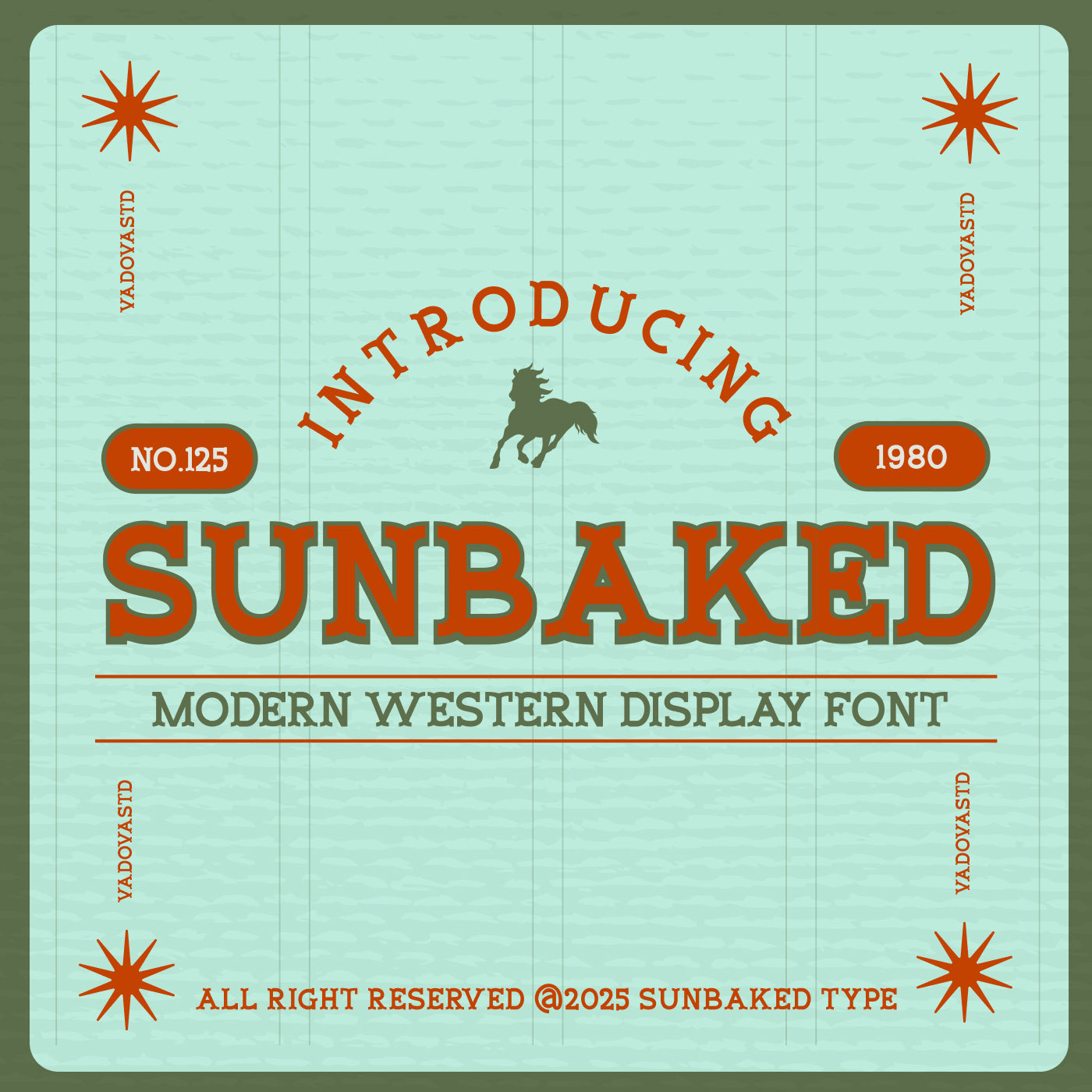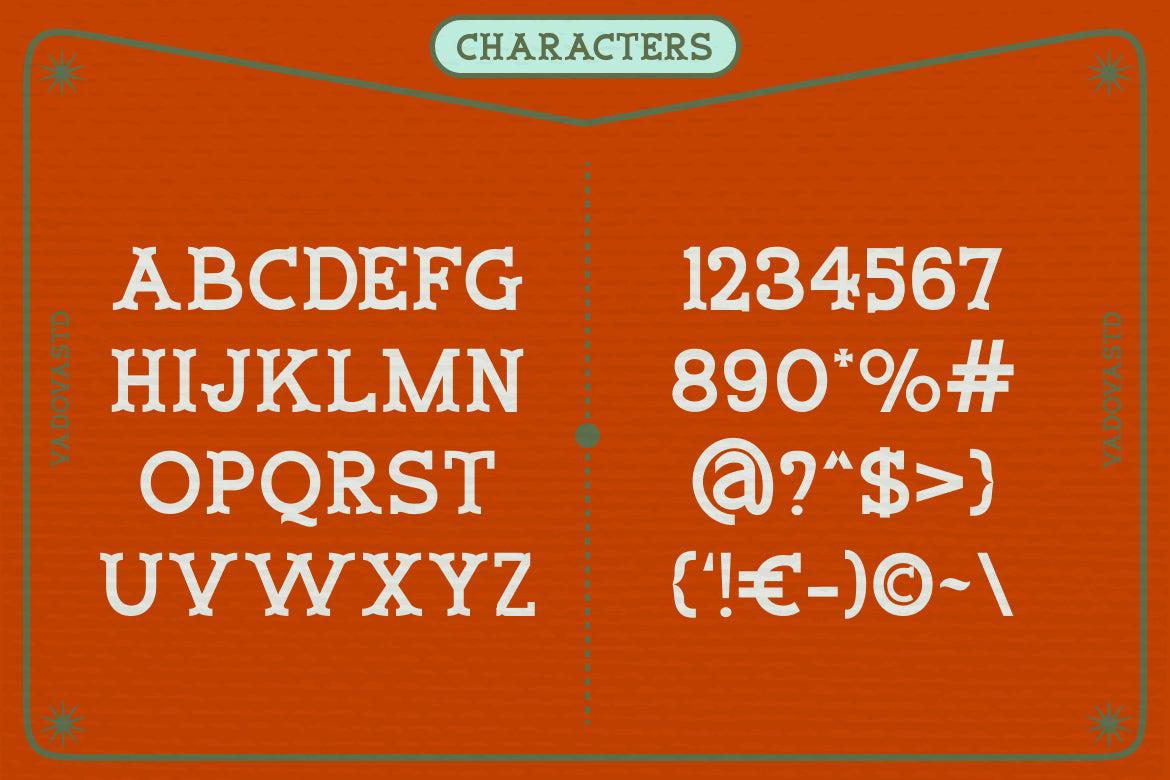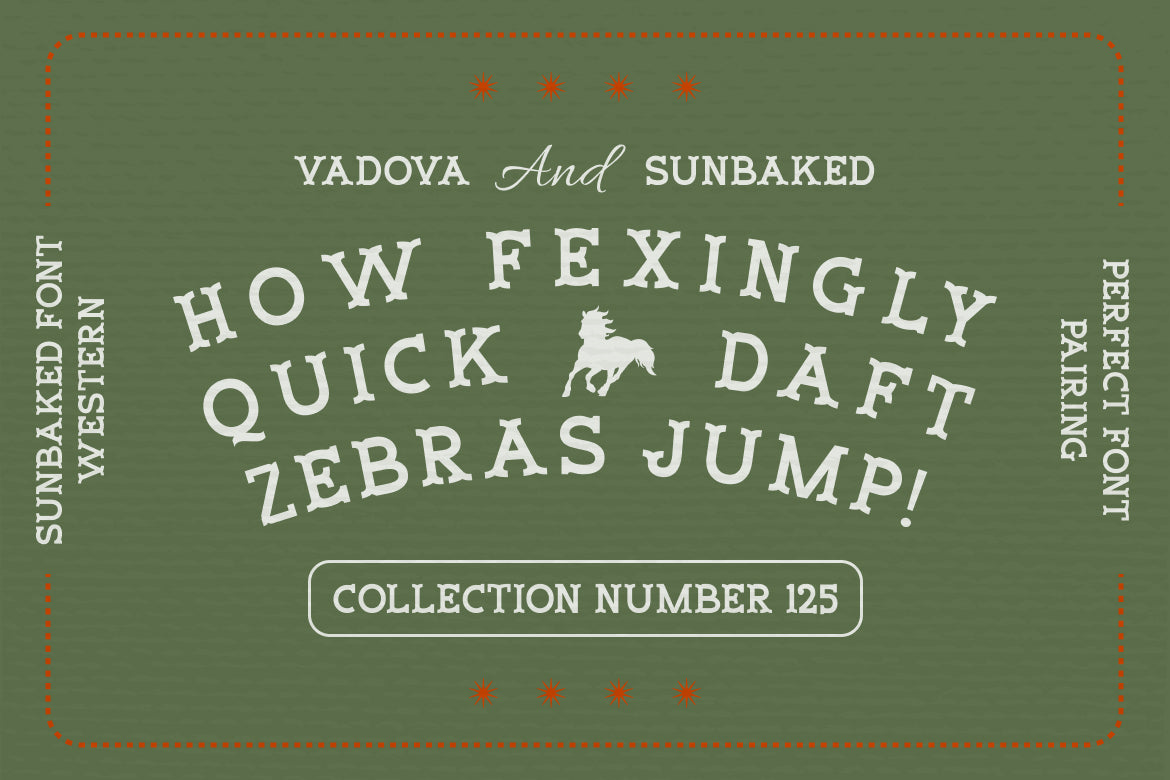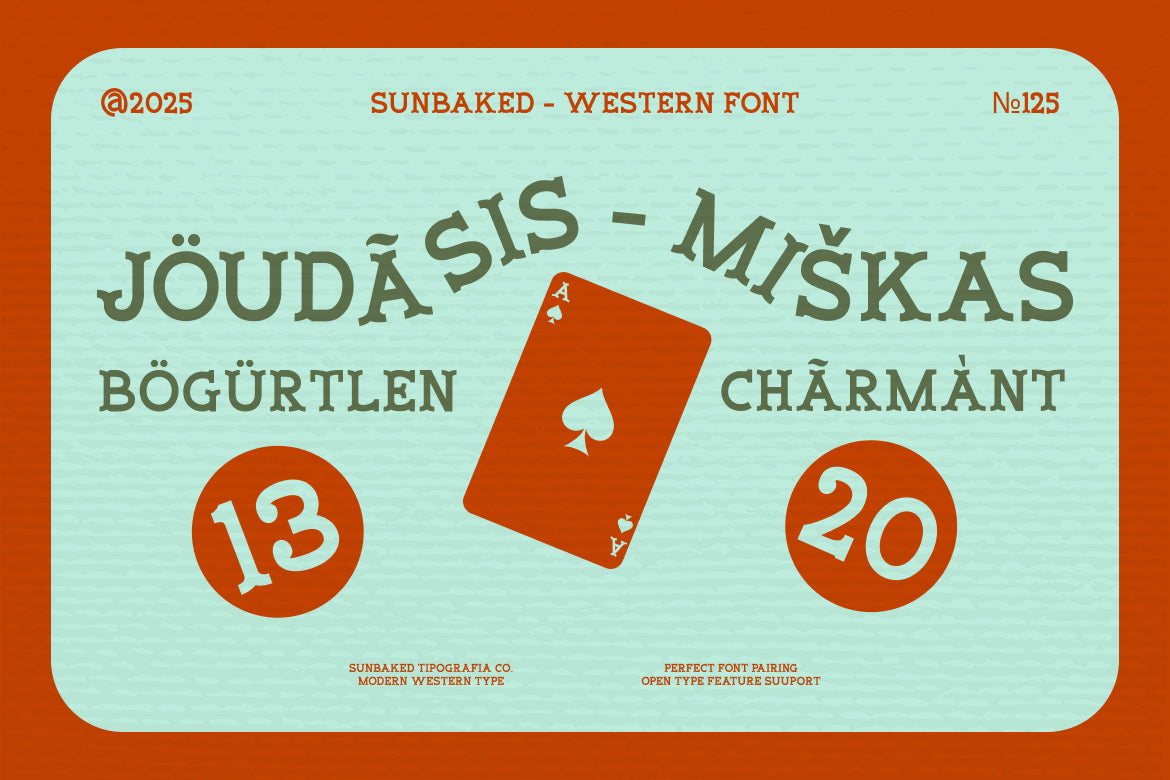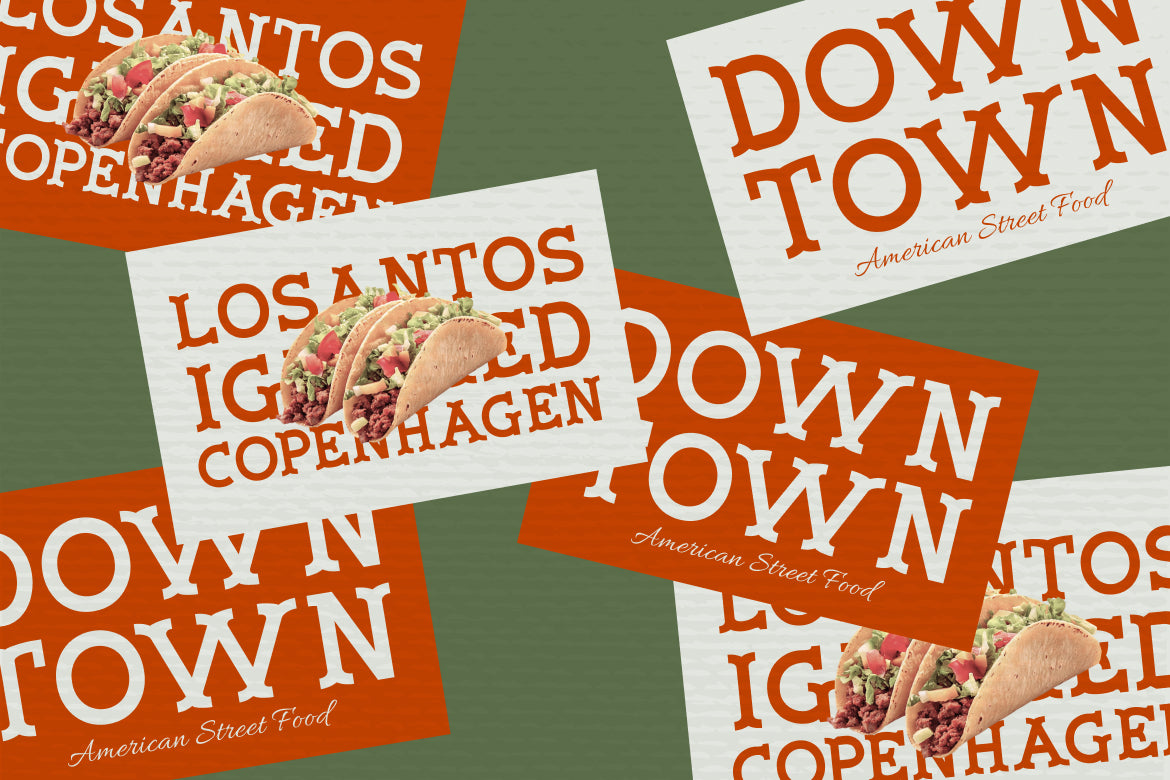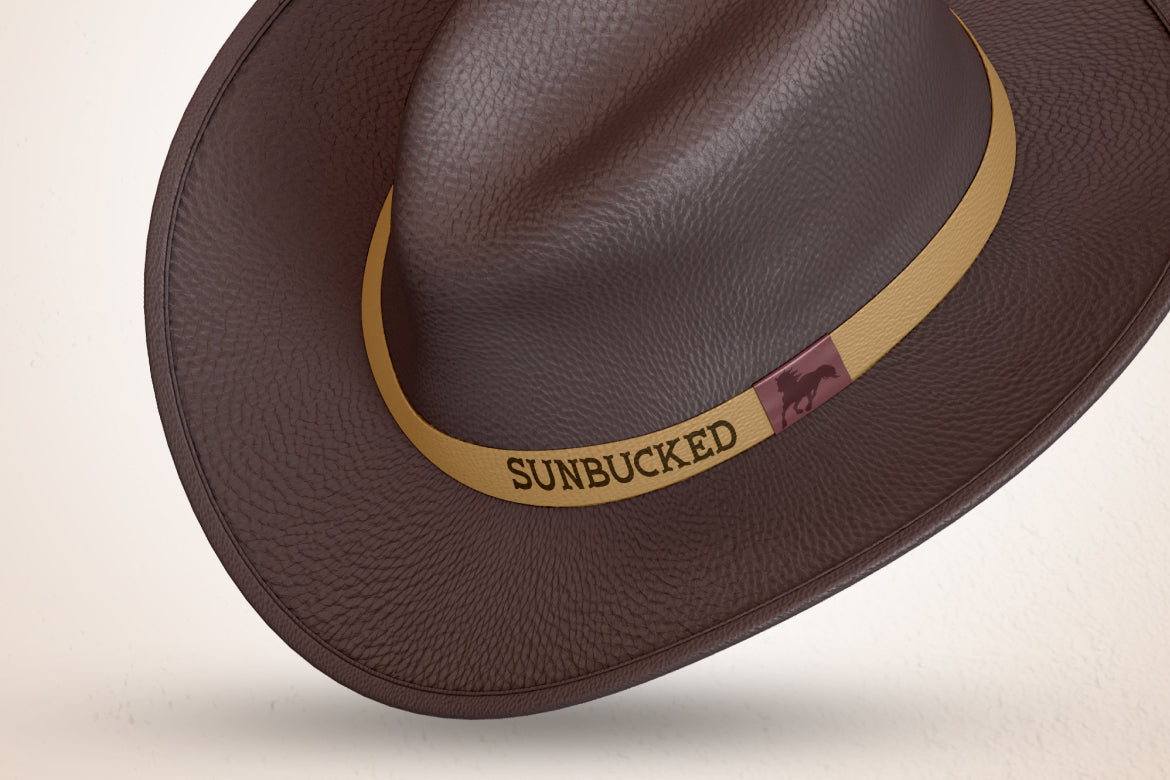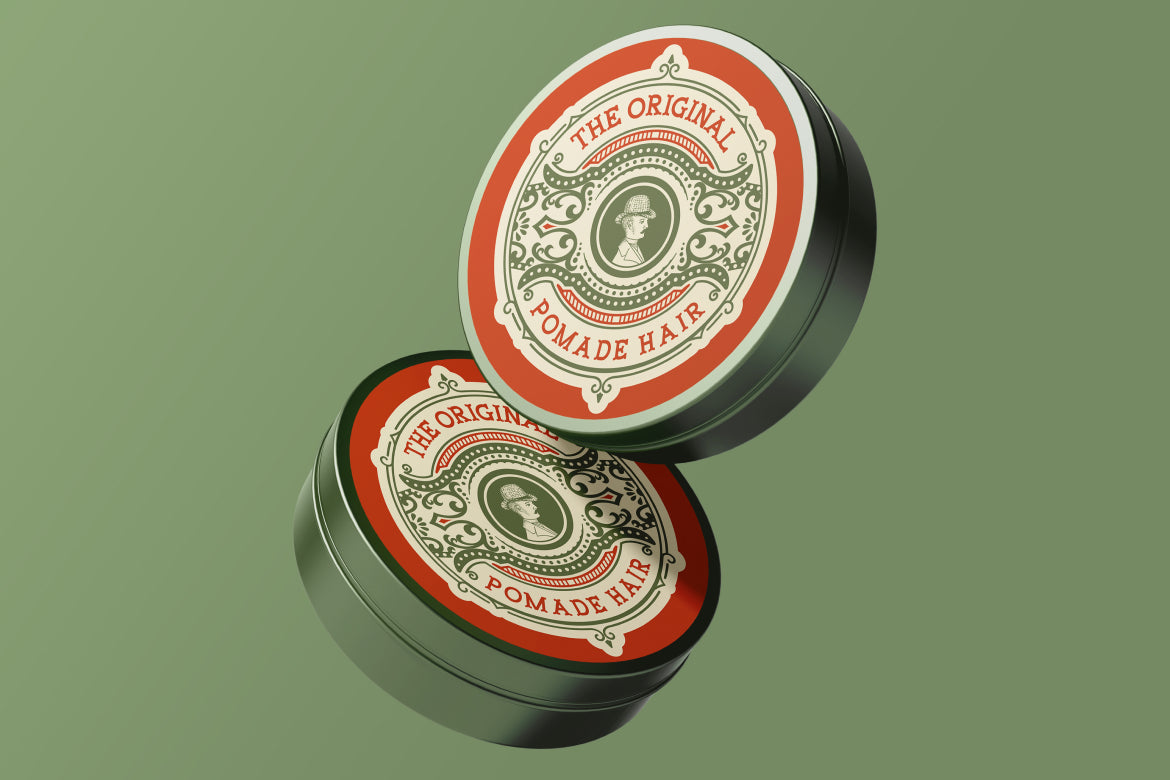
Sunbaked Modern Western Display Font
Sunbaked is a distinctive western display typeface inspired by vintage Americana, frontier signage, and classic western lettering. Its bold serif construction features sharp bracketed serifs, sturdy proportions, and decorative angular details that give each character a rugged yet refined appearance. The strong letterforms are designed to stand out in large sizes, making the font especially effective for western branding, posters, apparel graphics, badges, packaging, labels, and retro-themed headlines.
Sunbaked works best when you need typography with a strong western and vintage personality. Use it for prominent words, short titles, logos, badges, and headlines rather than long paragraphs. Its bold serif shapes pair especially well with distressed textures, earthy color palettes, illustrations, horses, ranch imagery, and retro layouts.
Sunbaked is a bold western display typeface featuring bracketed serifs, sturdy proportions, and angular details, with uppercase and lowercase characters, numerals, and punctuation. It is available in TTF, OTF, and WOFF formats.